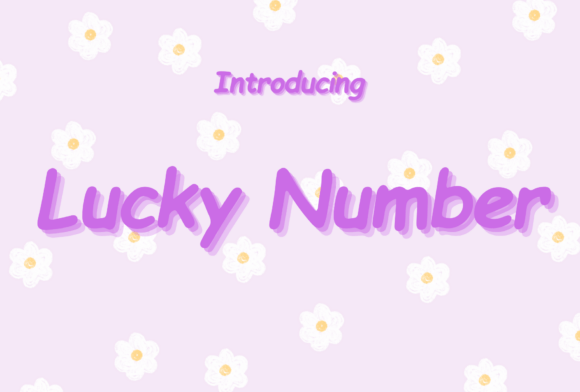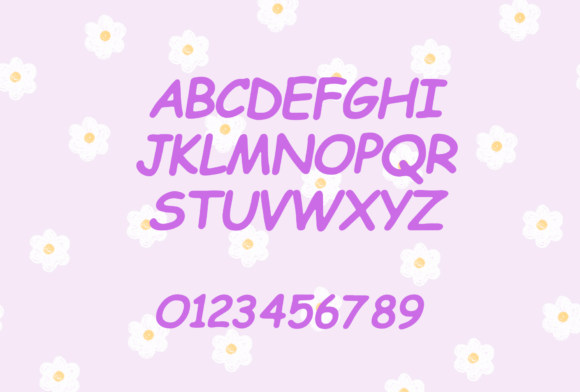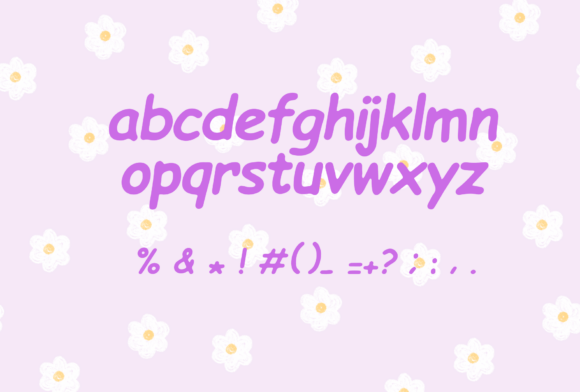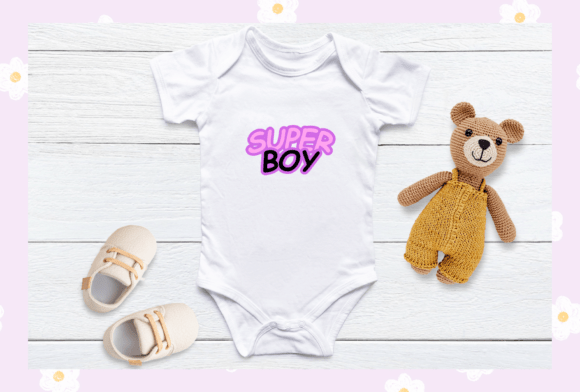
Lucky Number Font: A Cute Handwritten Font for Digital Planning
About the Lucky Number Font
Discover the charm of Lucky Number Font. This font is a perfect blend of modern aesthetics and classic appeal. Lucky Number is a neat handwritten font, perfect for digital note-taking. This versatile font works great for various projects, including Procreate, blog posts, logos, branding, digital planners, invitations, greeting cards, photo albums, decorations, and more. It also supports multiple languages and adds a cute, personal touch to any design, especially on iPads and GoodNotes.
Lucky Number’s playful, handwritten style shines in headlines, short text blocks, and branding elements where a friendly, approachable feel is desired. It excels on packaging for artisanal goods, invitations, and social media graphics. However, its informal nature makes it unsuitable for body text, long paragraphs, or applications requiring high readability, such as UI or legal documents.
Pairing Lucky Number with a clean sans-serif like Open Sans for body text creates a strong visual hierarchy. For a more sophisticated look, consider pairing it with a classic serif like Garamond for supporting text. A geometric sans-serif like Montserrat would also offer a contemporary contrast.
The font’s core personality is undeniably friendly and approachable, lending itself to brands focused on crafts, small businesses, or projects with a lighthearted tone. Avoid using it for brands requiring a serious or formal image.
Lucky Number Font Usage Examples
Lucky Number Font Example